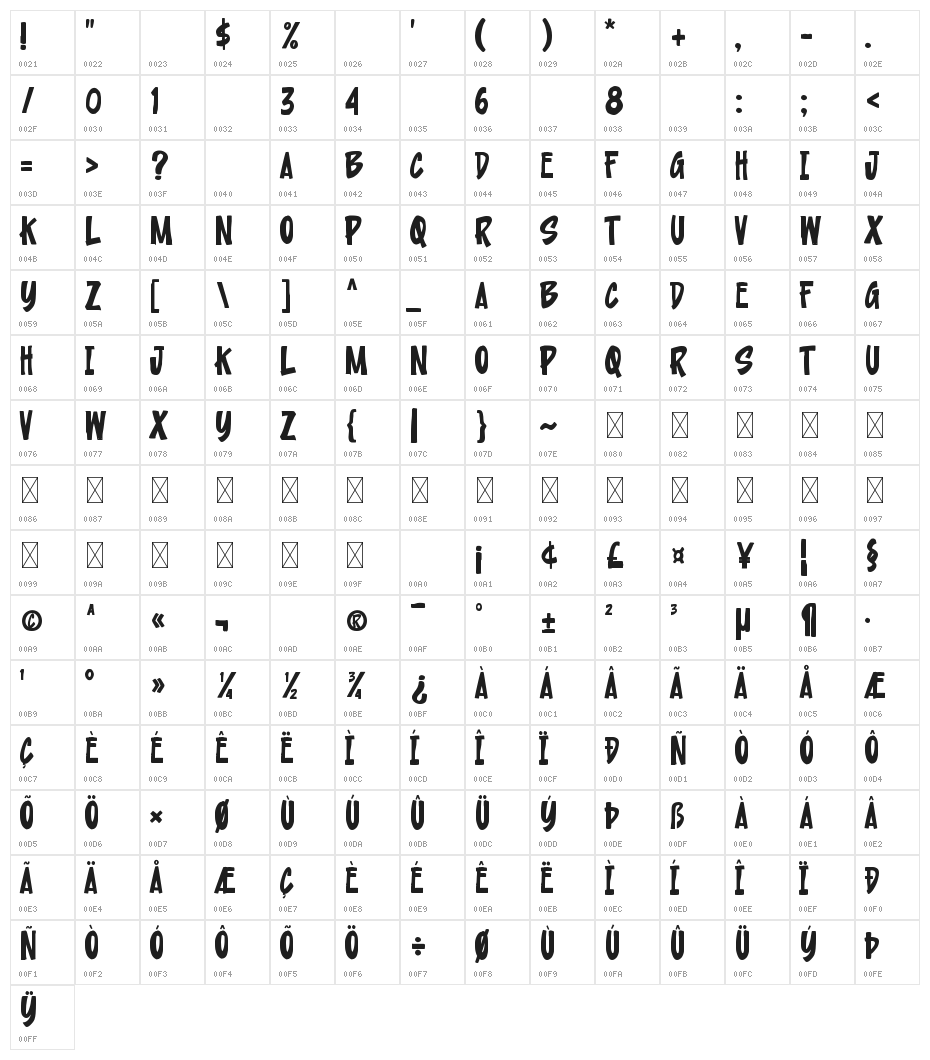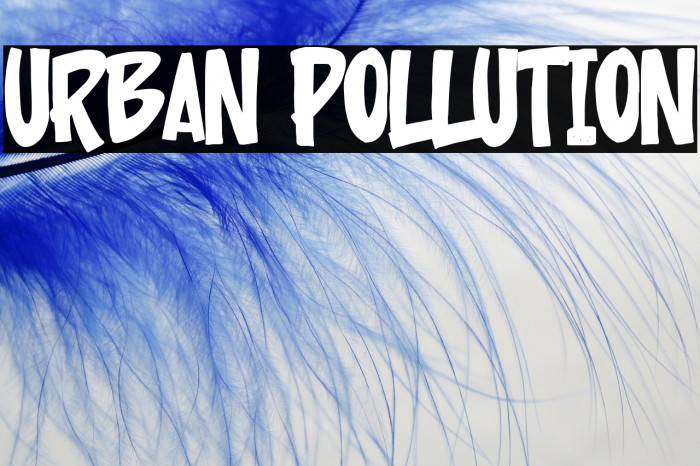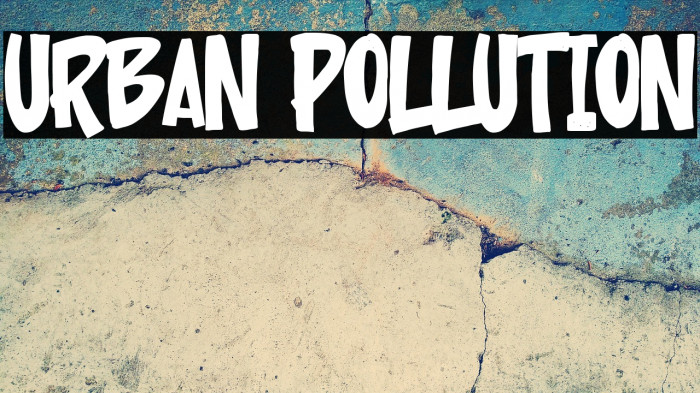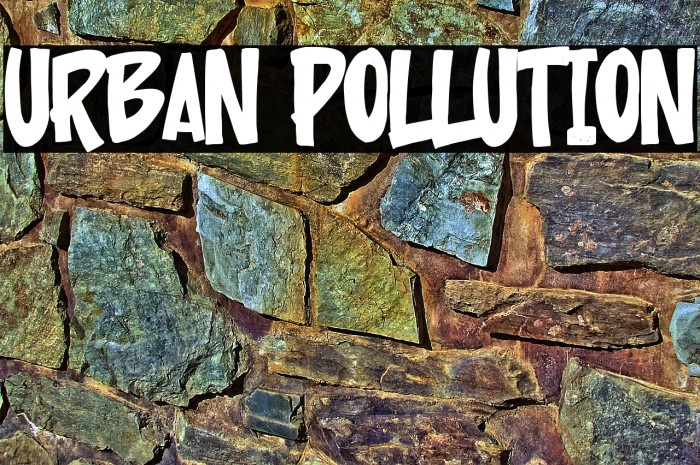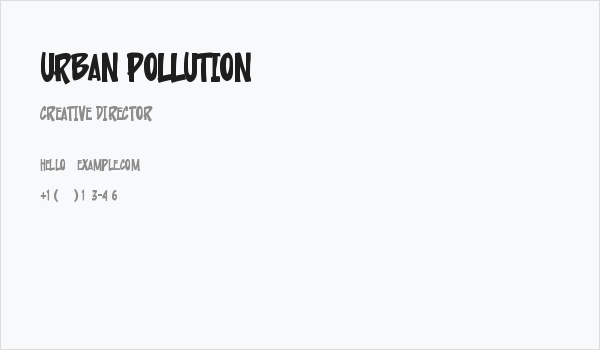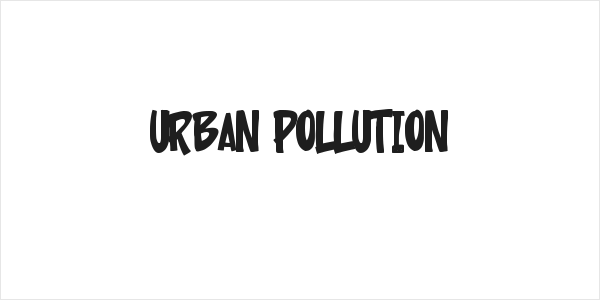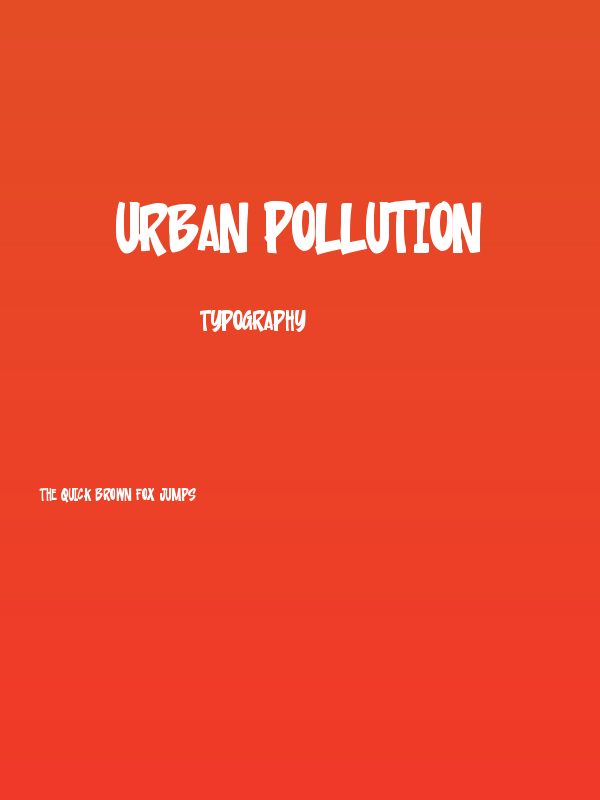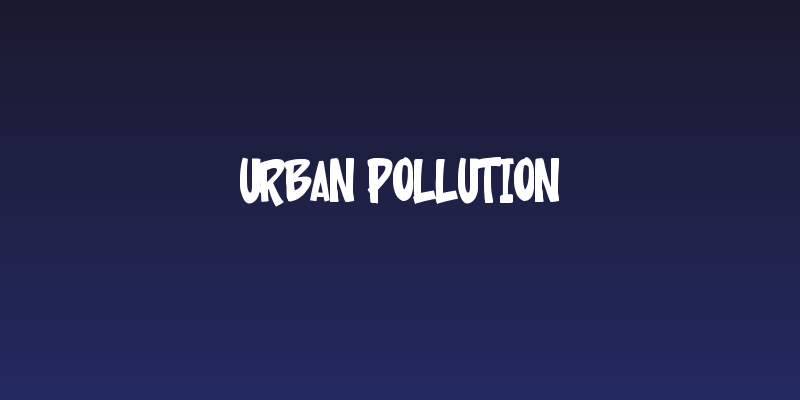
Urban Pollution Font
Urban Pollution Description
This font features a bold and dynamic style with a hand-drawn appearance, characterized by thick strokes and uneven edges that give it a lively and energetic feel. The uppercase and lowercase letters maintain a consistent weight, creating a cohesive look across the alphabet. The numbers and special characters follow the same bold and playful design, making them stand out. The overall style is reminiscent of urban graffiti or street art, with a modern twist that adds a sense of movement and vibrancy. The font's unique character makes it suitable for projects that require a strong visual impact.
| Overall Style | Modern, Urban, Graffiti |
| Use Case | Headlines, Posters, Branding |
| Proposed Projects | Ideal for posters, street art designs, urban-themed branding, and eye-catching headlines. |